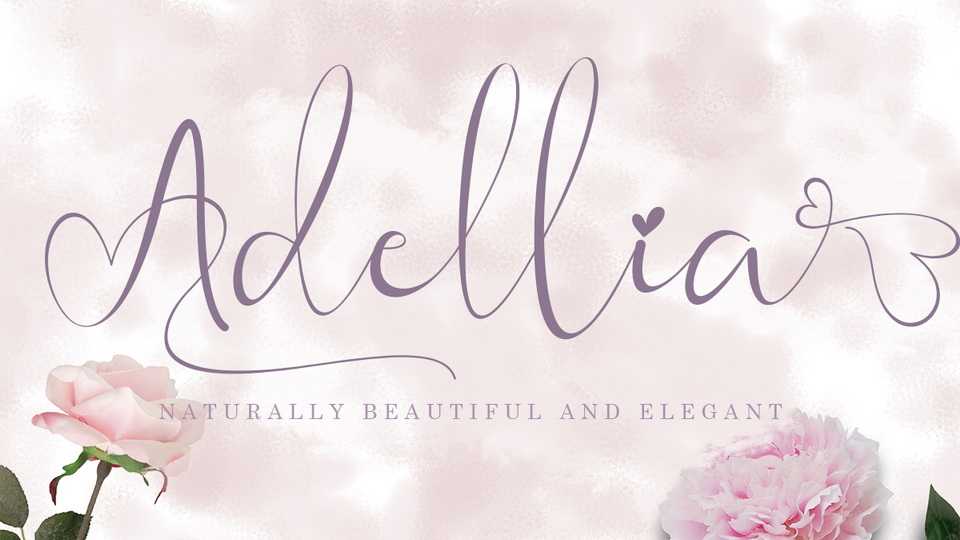
Download Adellia font, a script typeface that is very elegant, beautiful and has a romantic impression. Adellia is suitable for beautifying all types of your work.